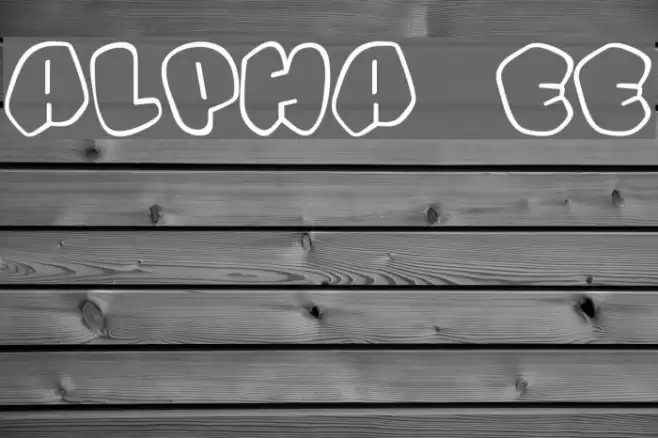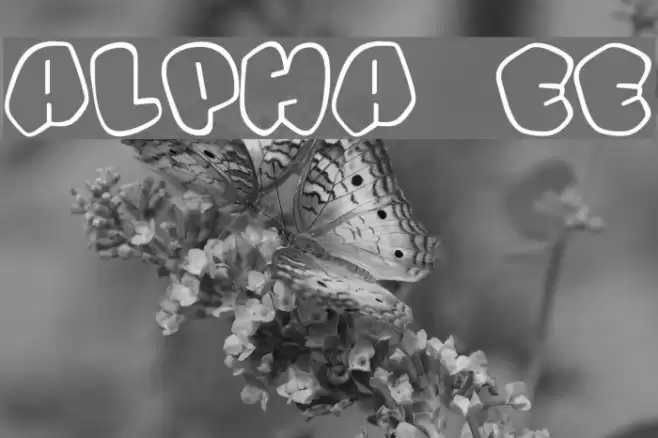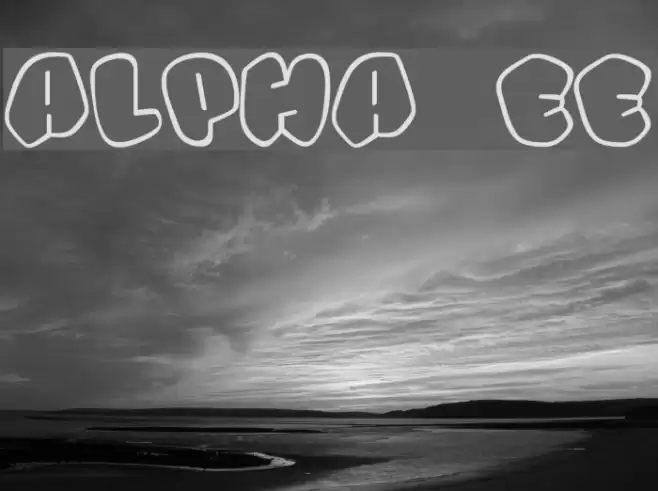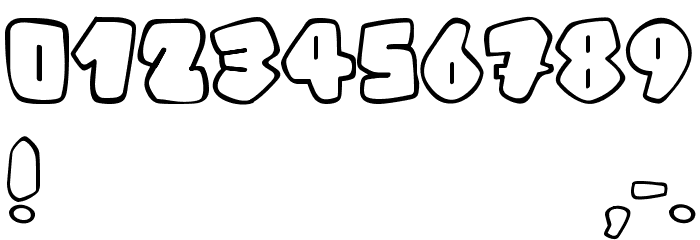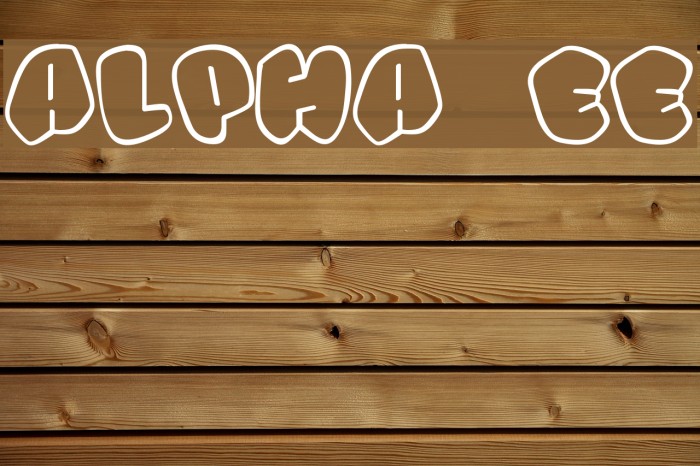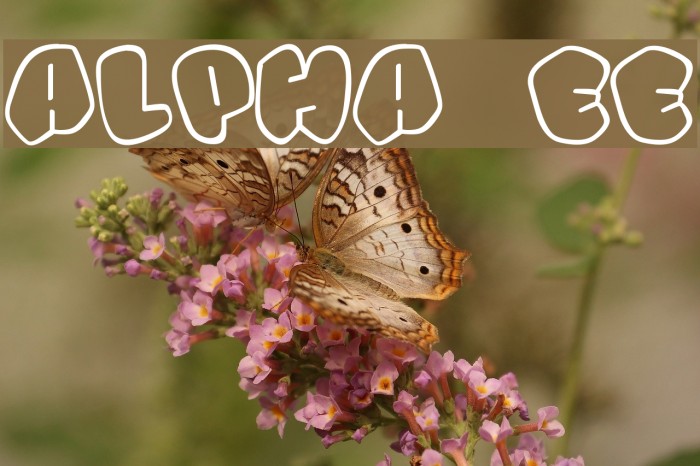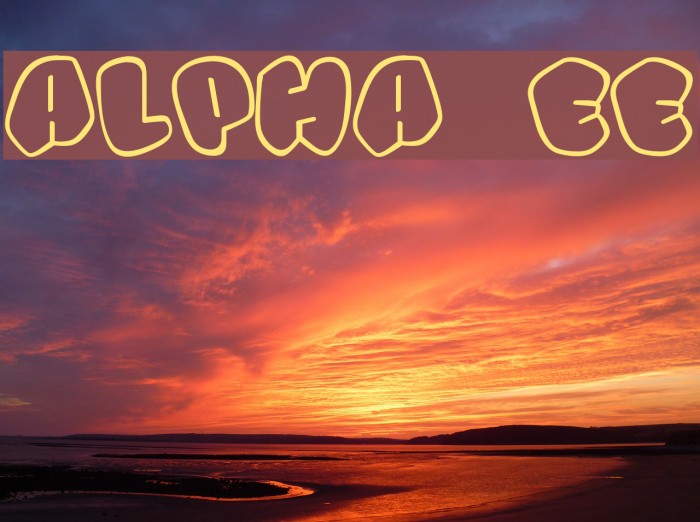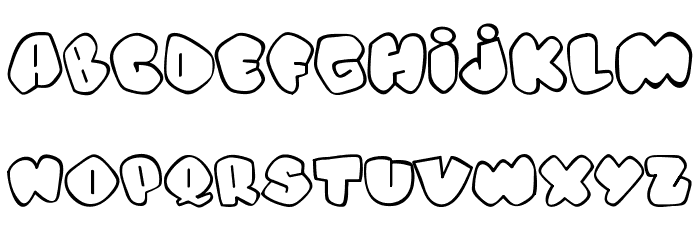
Alpha street Font
Alpha street Description
This playful and bold font features a bubble-like, rounded design with thick outlines that give it a cartoonish and fun appearance. The characters are slightly irregular, adding a whimsical touch to the overall style. The uppercase and lowercase letters maintain a consistent style, with the numbers and special characters following suit. The font's unique and eye-catching design makes it ideal for projects that require a lively and energetic feel. Its boldness ensures high visibility, making it suitable for headlines and attention-grabbing text.
A playful, bubble-like font with thick outlines and a cartoonish style from Uncategorized fonts.
- Proposed Projects: Ideal for children's books, comic strips, playful branding, and party invitations.
- Overall Style: Playful, Cartoonish